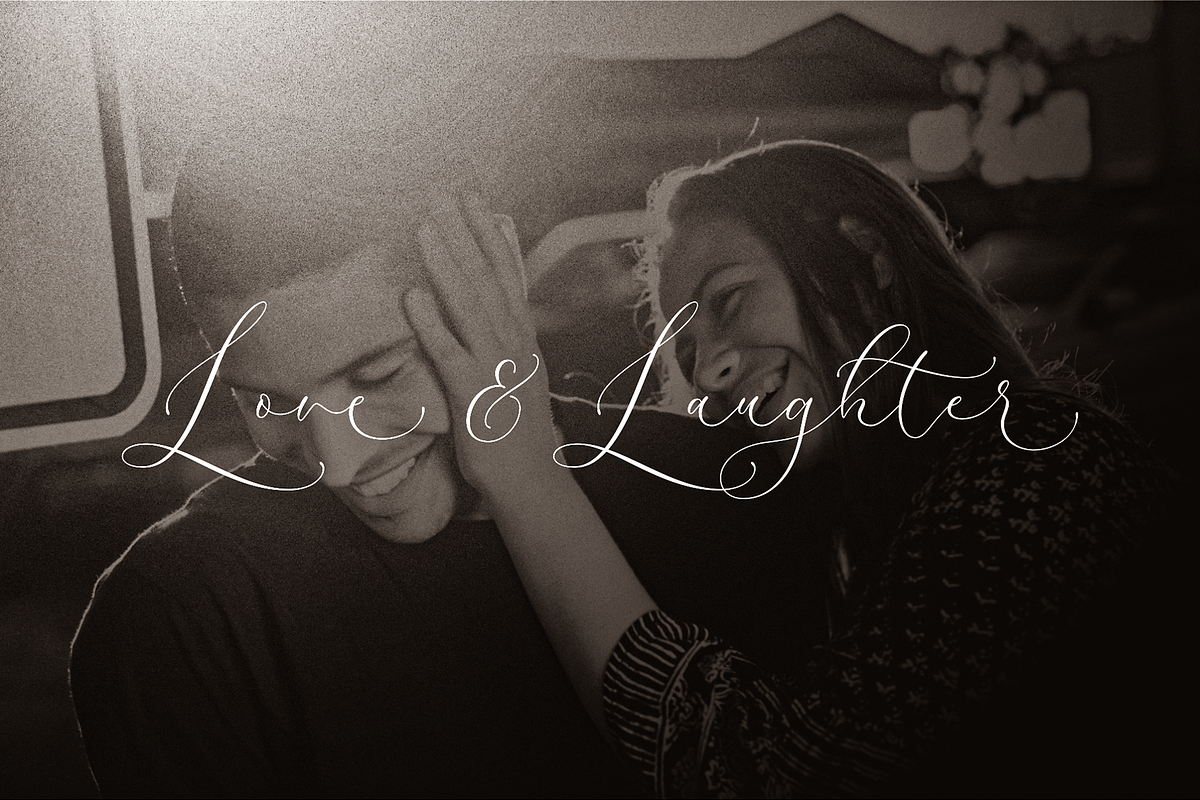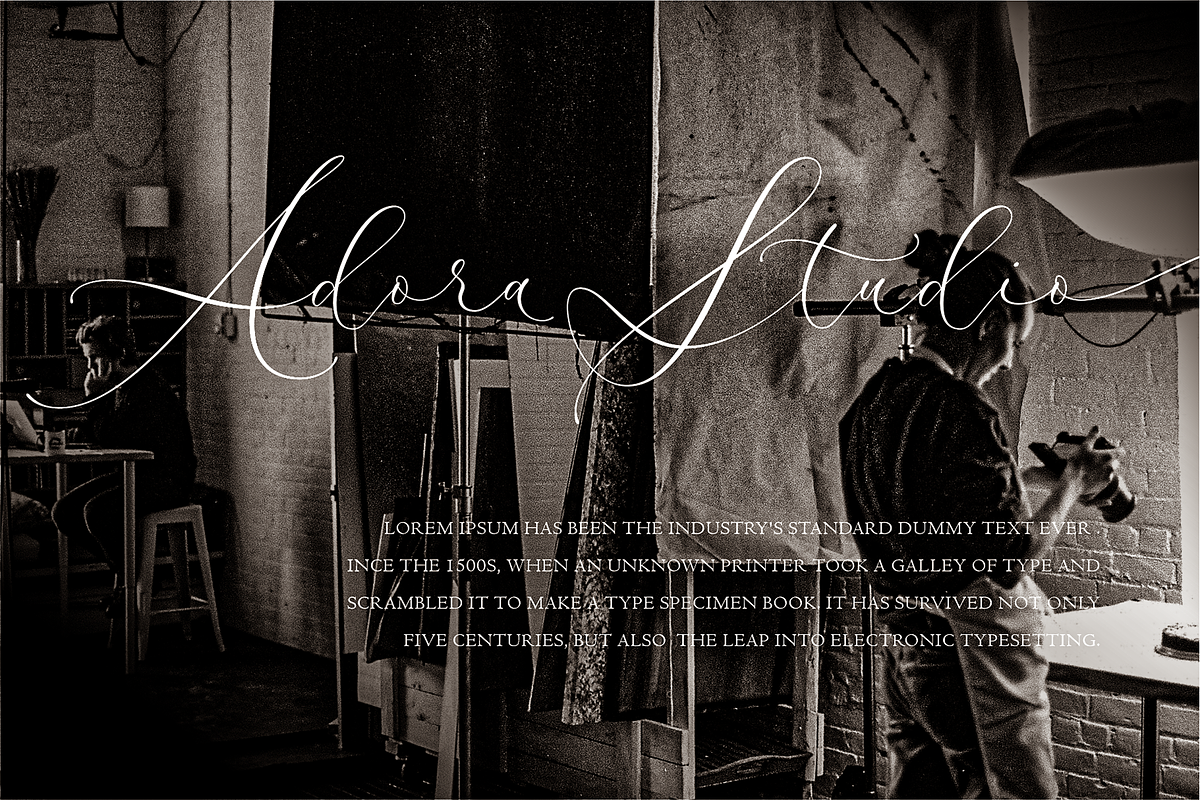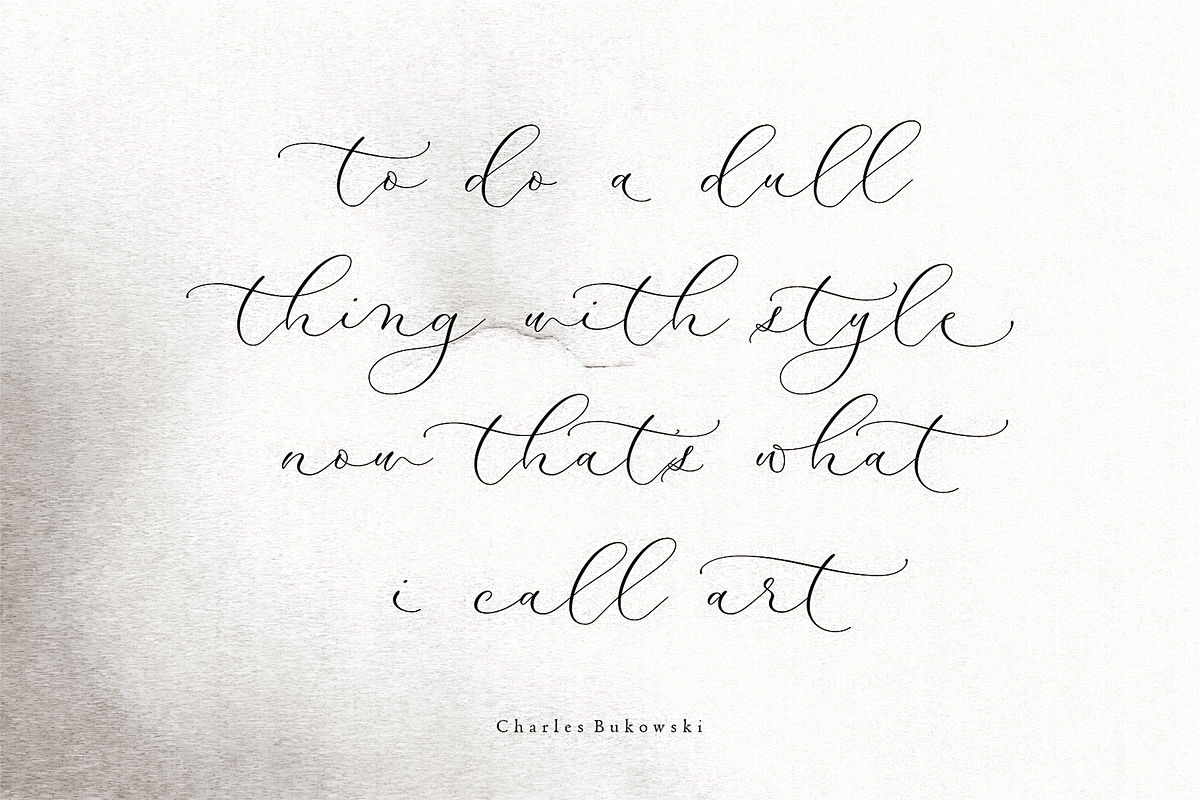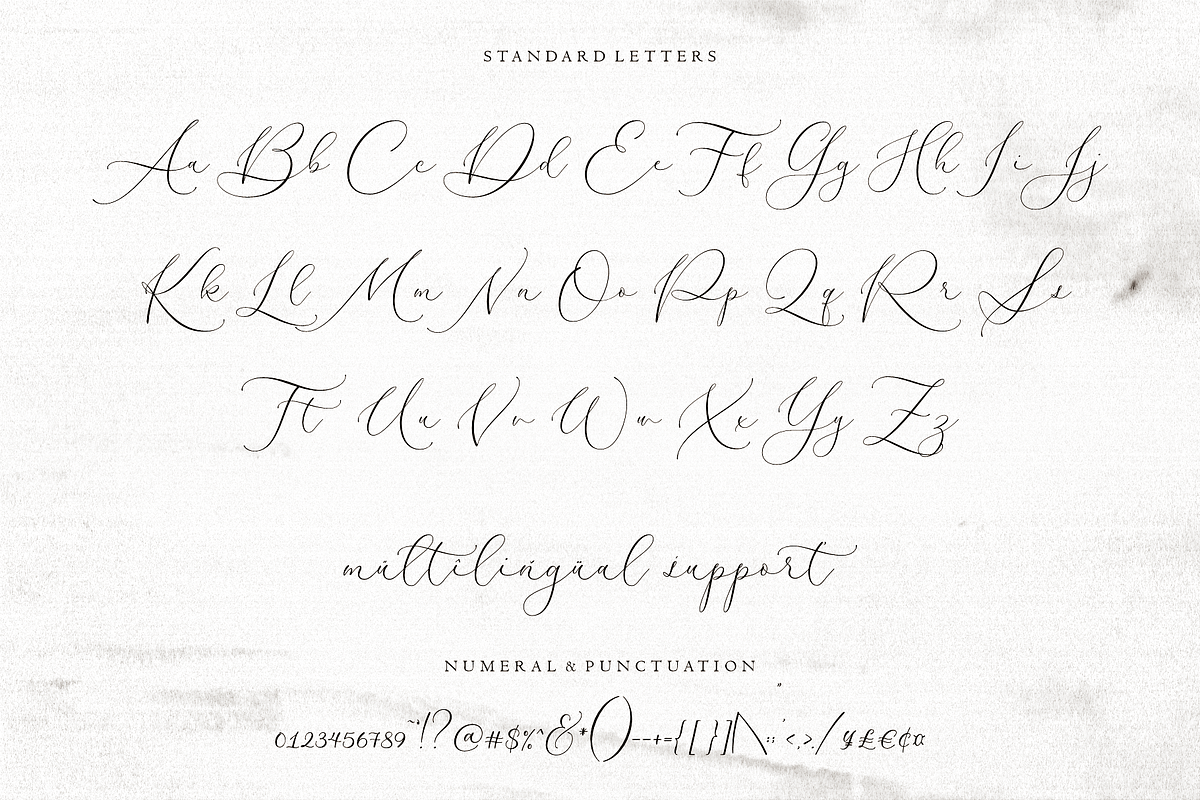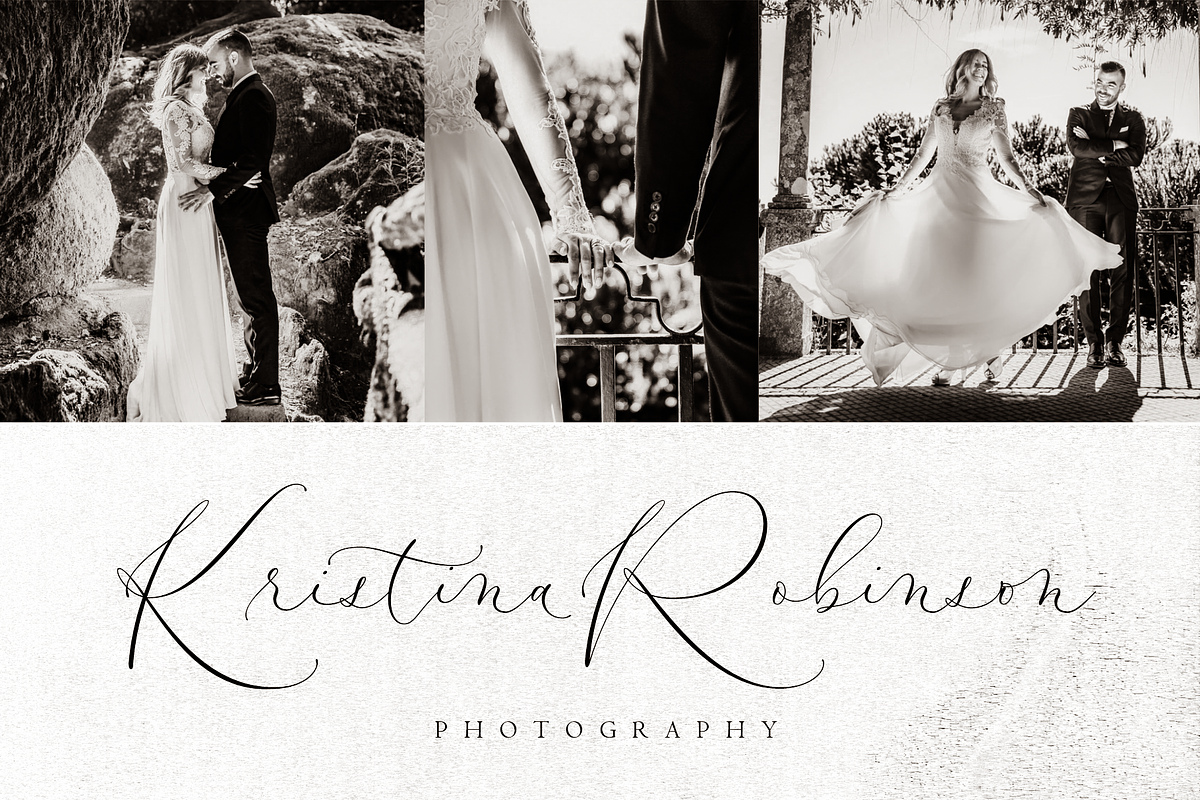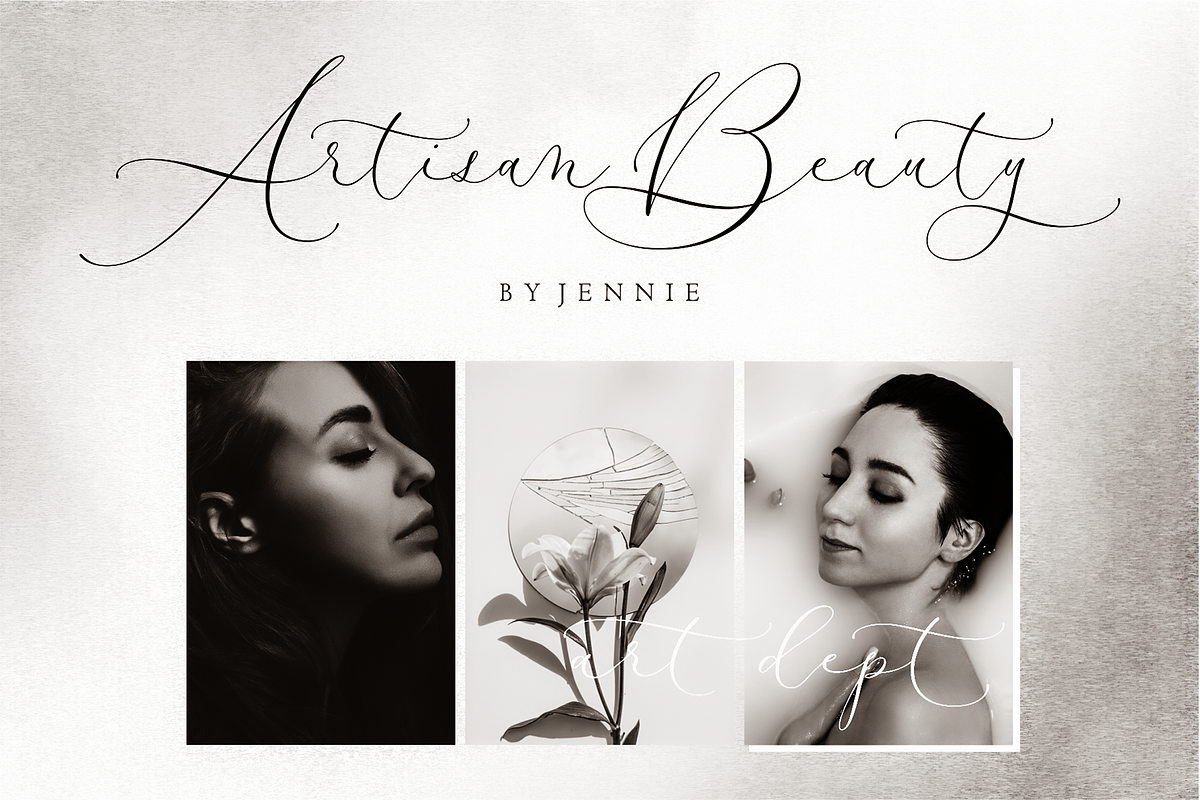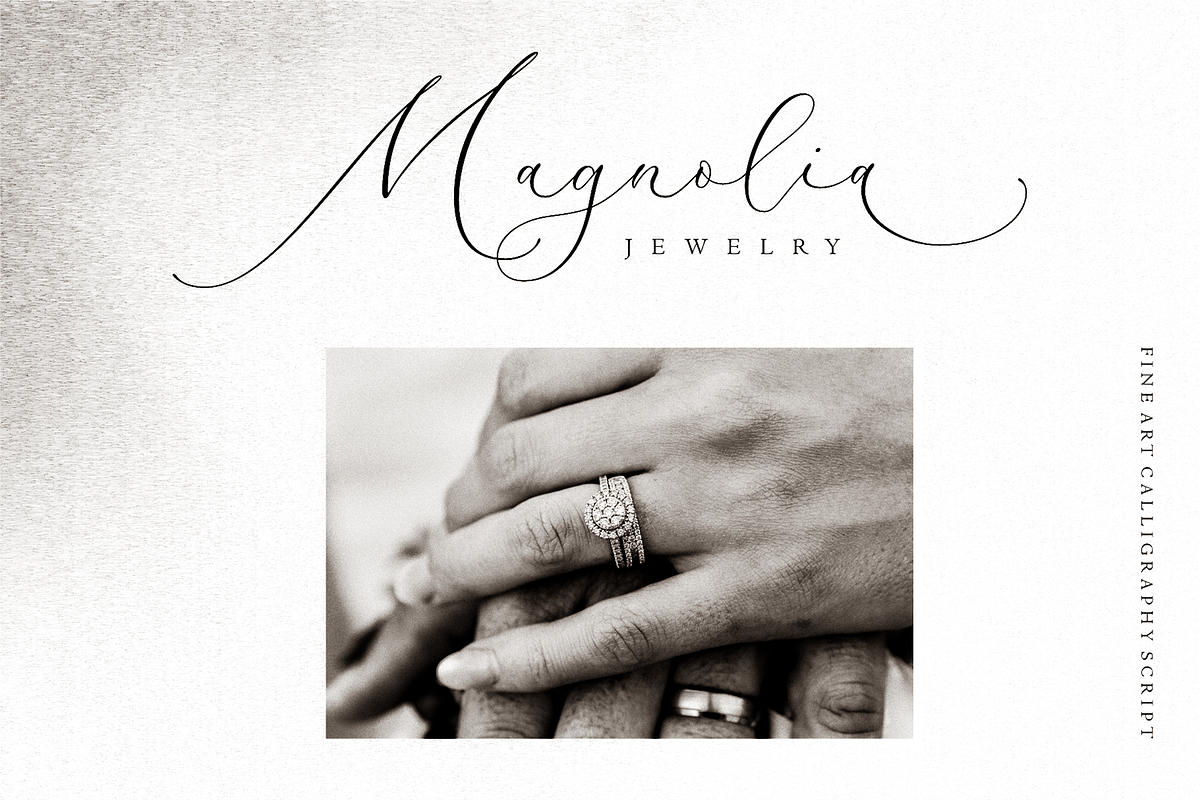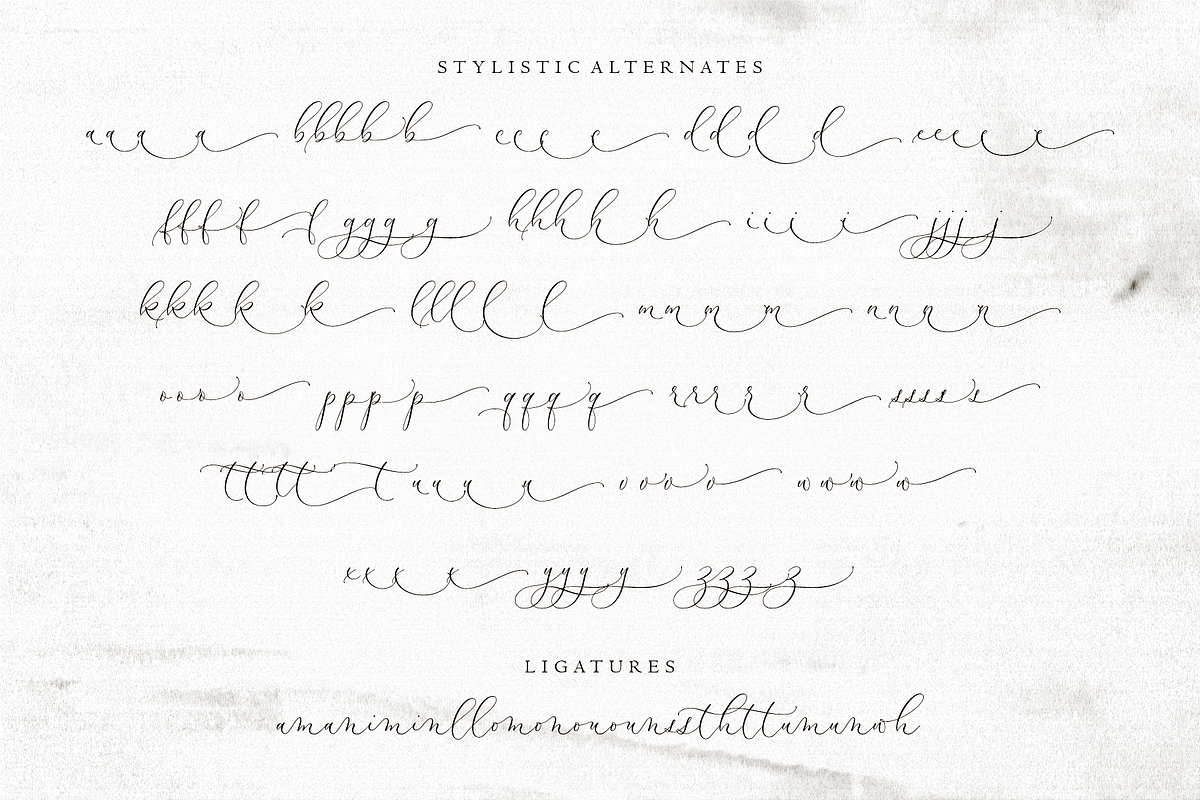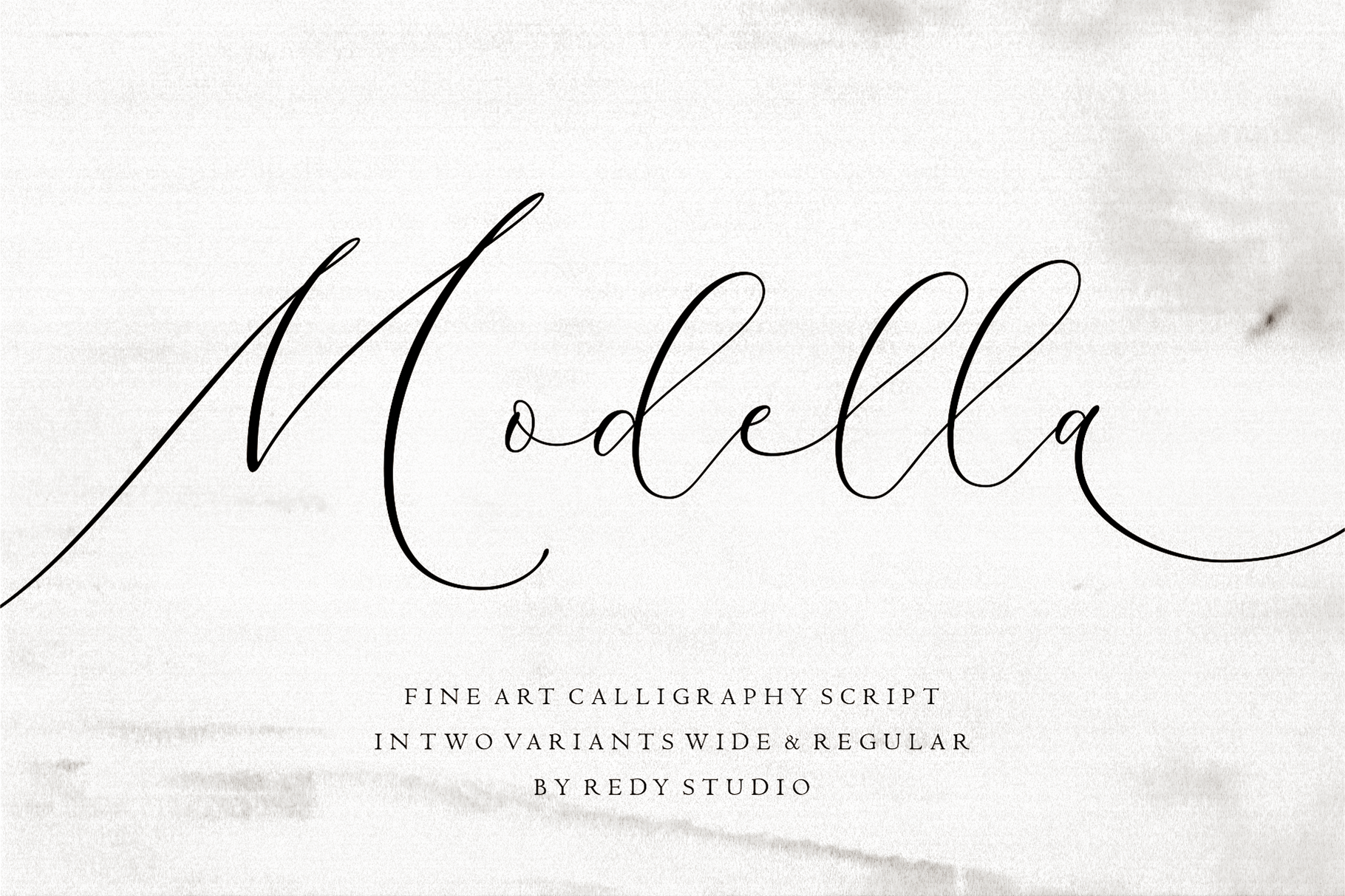
Modella – Modern Wedding Fonts
Introducing Modella, a modern script font designed for creating wedding invitations and other celebration-related designs. Inspired by Art-Deco, Modella is created with high attention to detail and unique shapes. Modella contains 2 font styles (regular & wide) ligatures, alternative letterforms, and swashes giving you an endless combinations of design possibilities. Modella is perfect for adding that extra bit of happiness to your day!
Modella features:
- A full set of upper & lowercase characters
- 23 Special ligatures
- Lowercase ending swashes
- A ton of stylistic alternatives